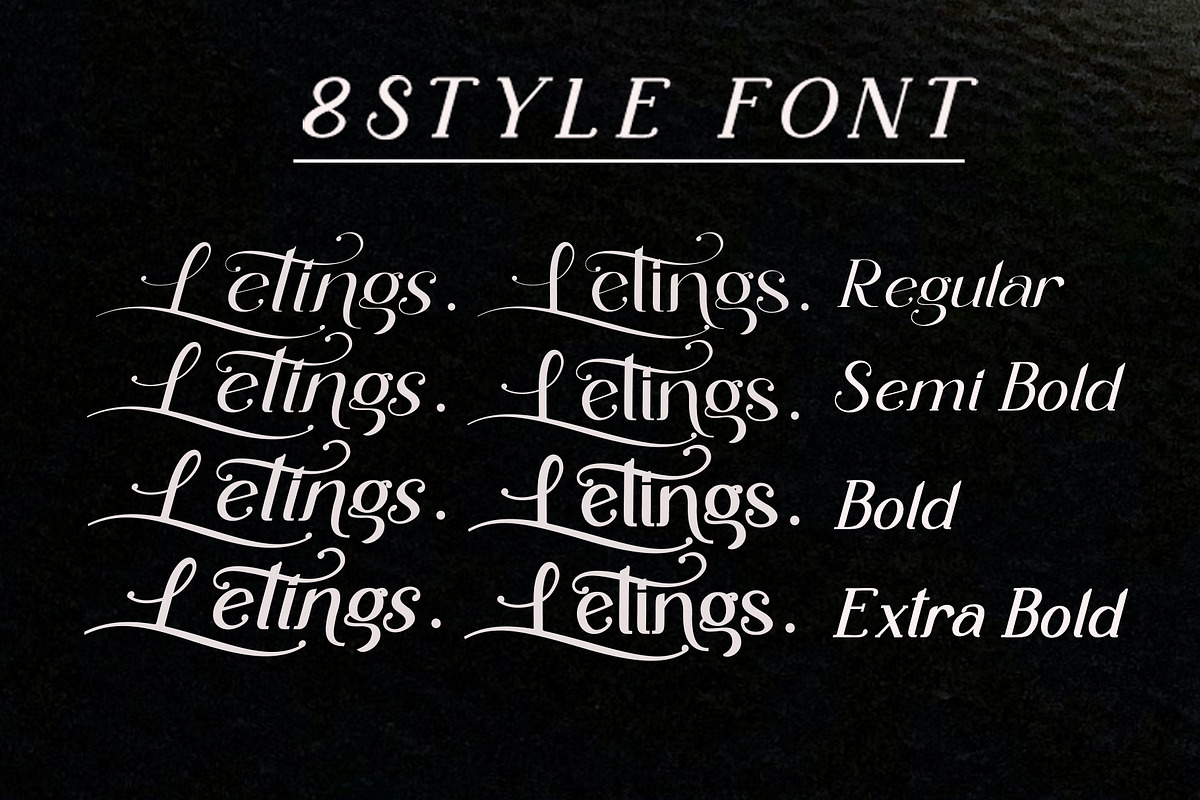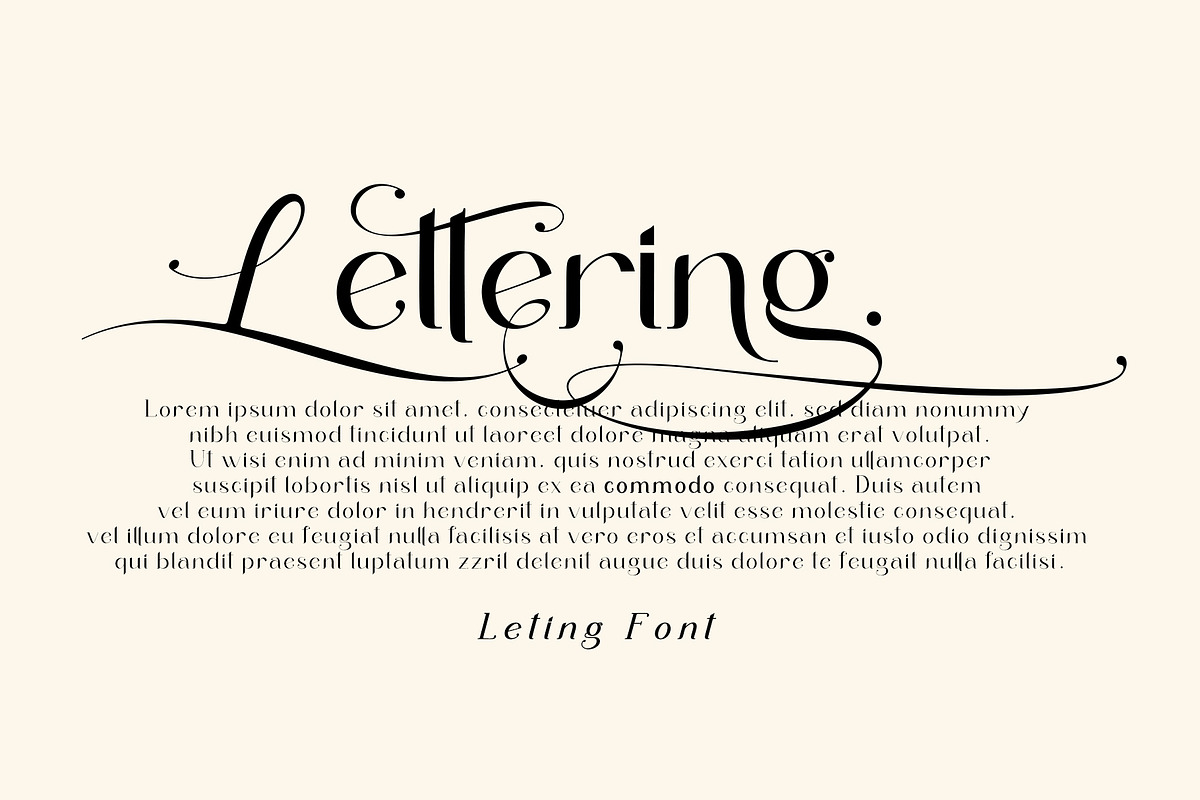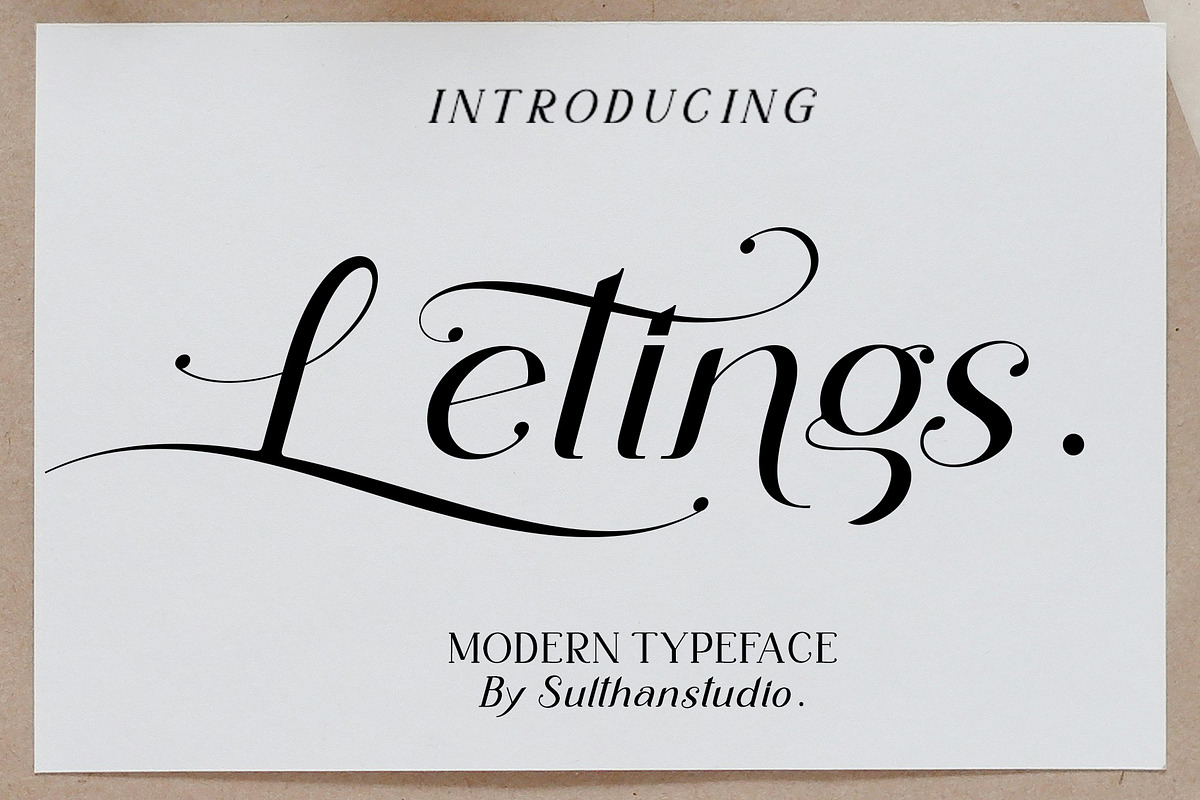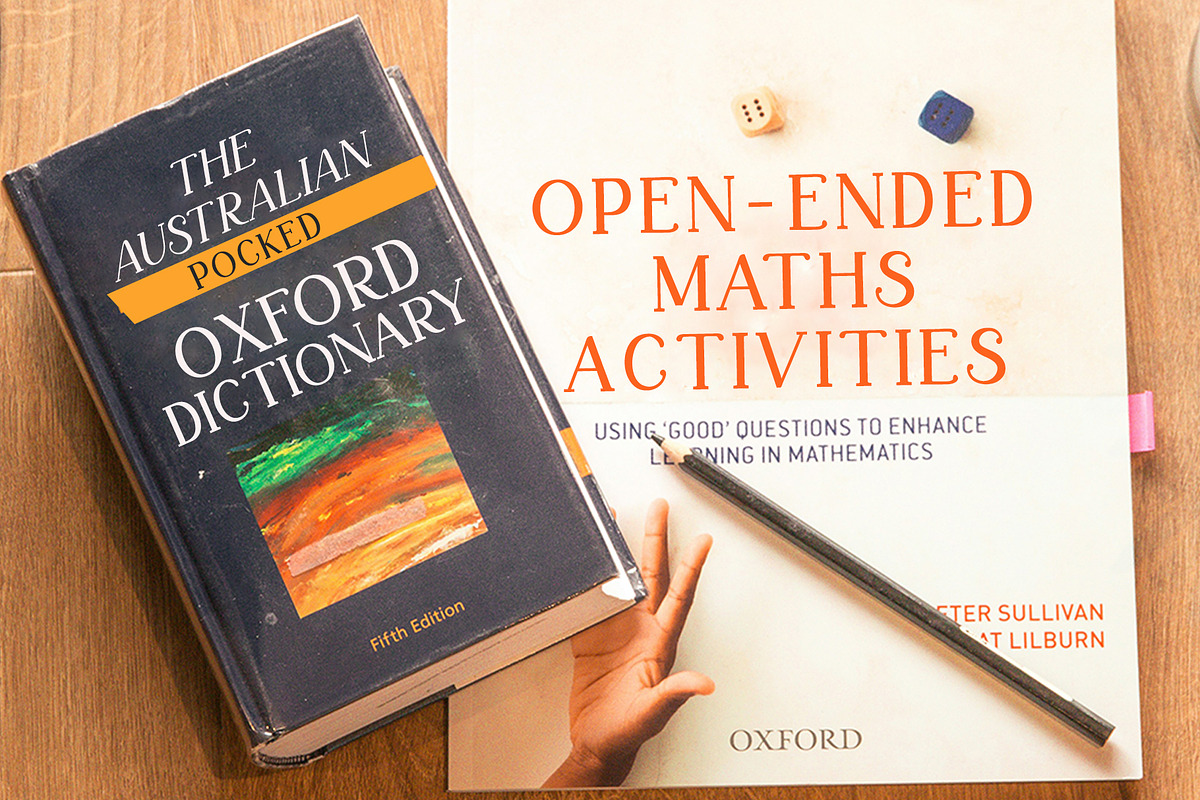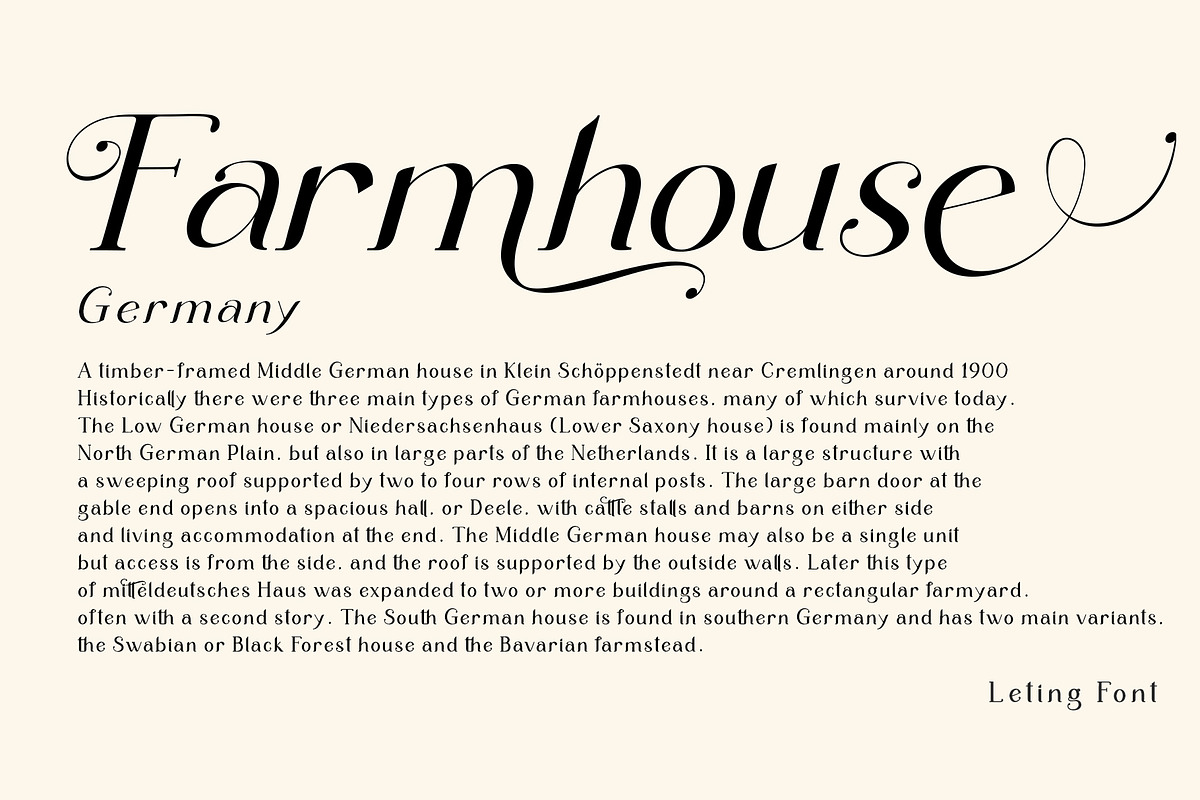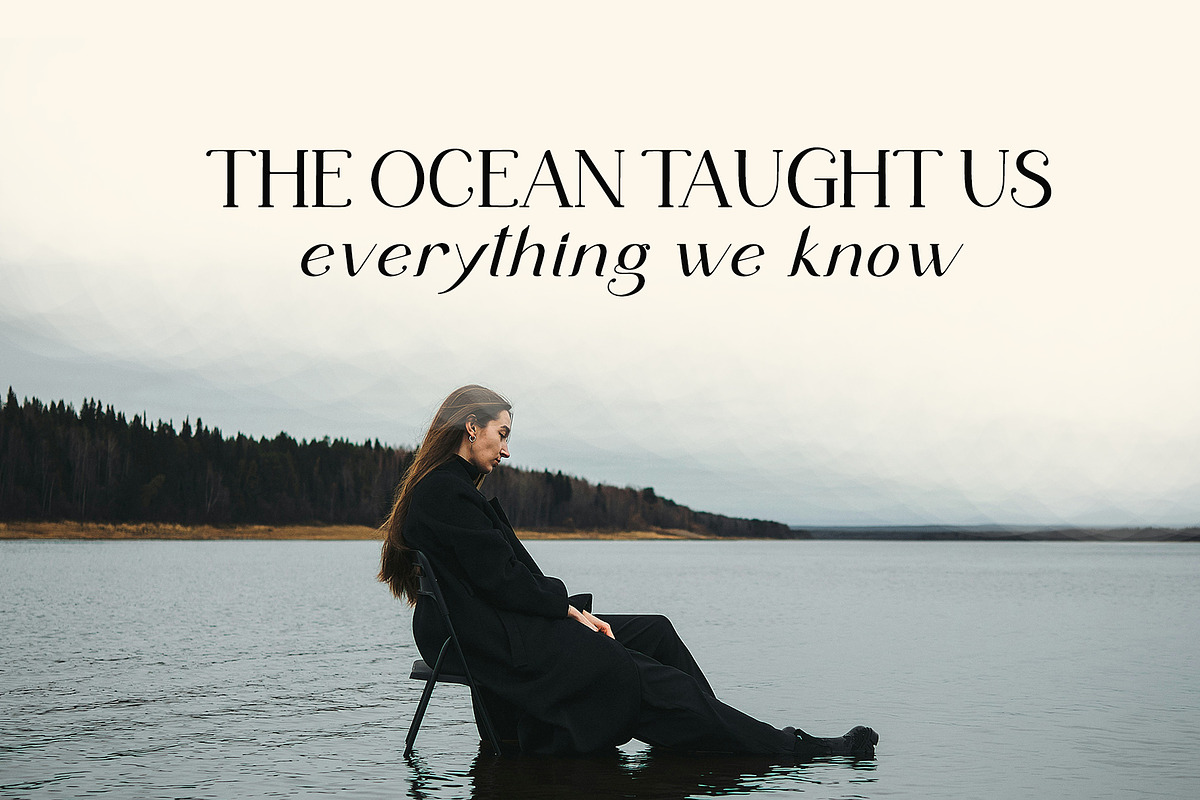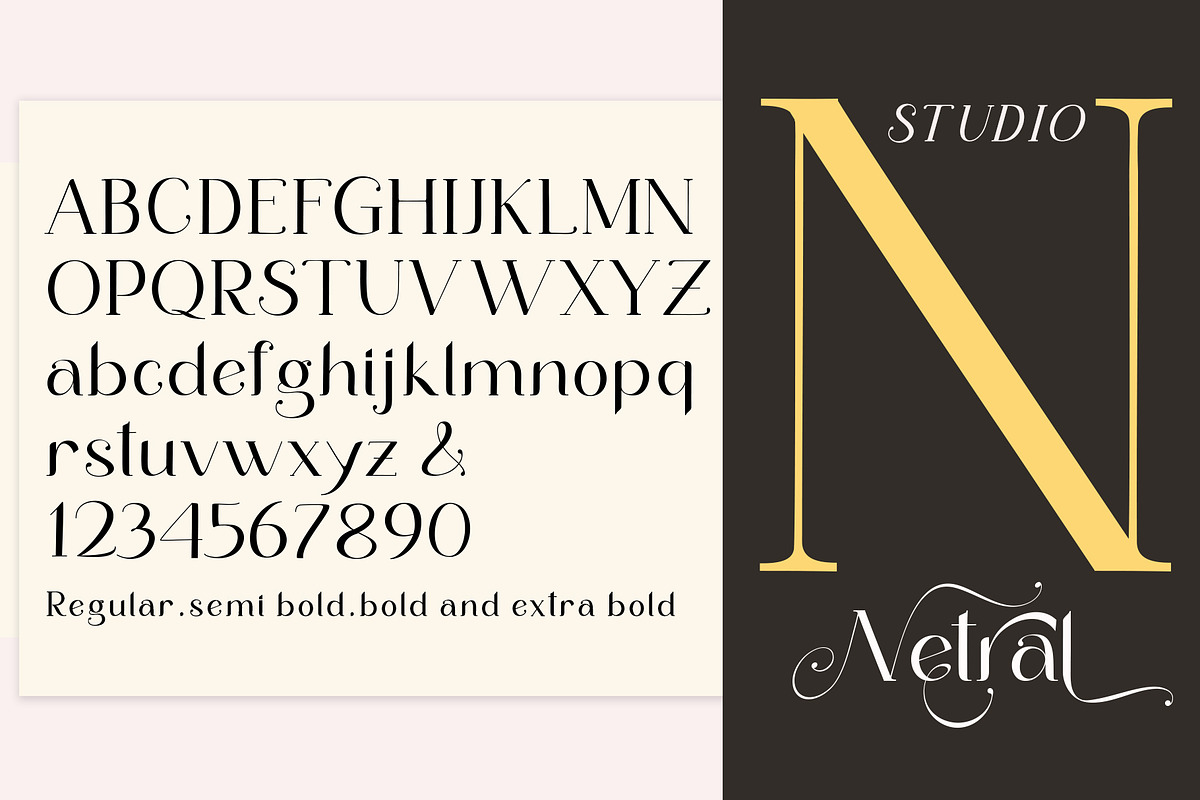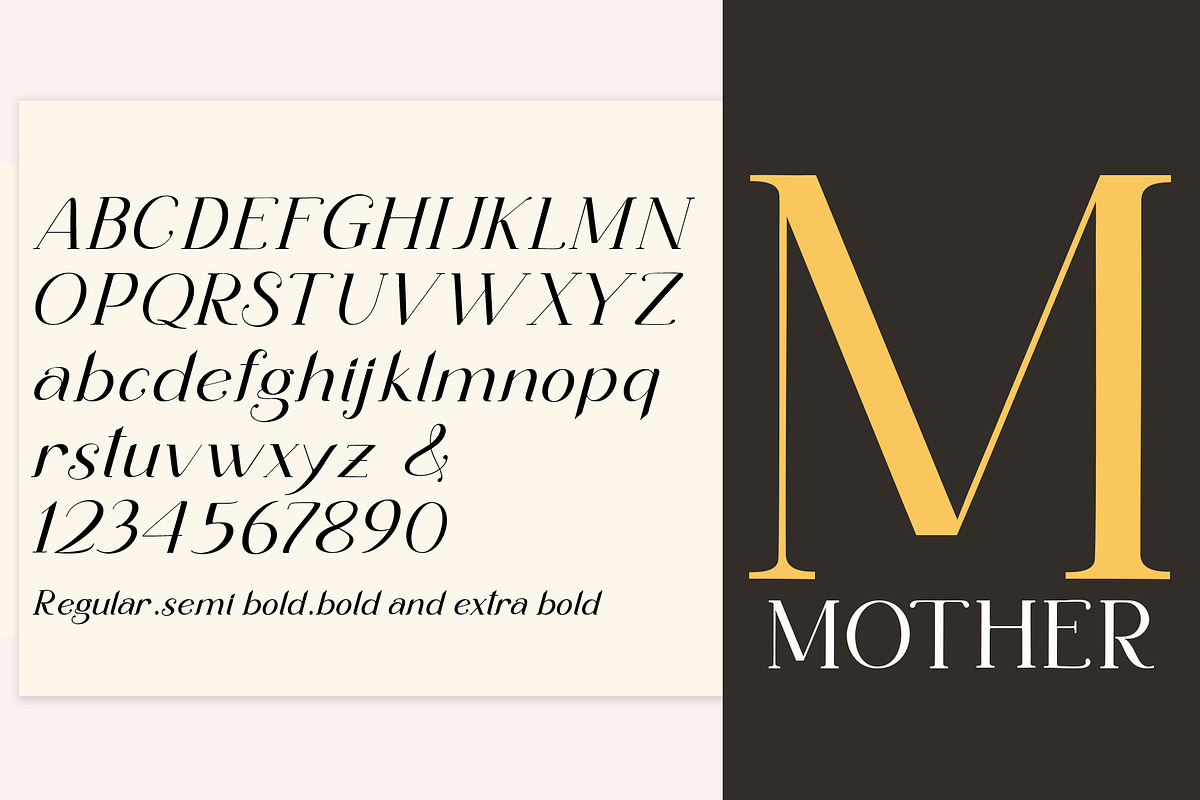
Letings
Introducing Letings, a modern serif font that fuses functionality with aesthetics, perfect for the needs of the contemporary era. Boasting eight distinctive thickness styles, Laying enhances the visual impact and communication of your creations. Every uppercase and lowercase letter features a unique swash and alternative, available in both regular and italic styles. Join the revolution in typography with Leting, destined to elevate all your design works with its sleek sophistication and versatile adaptability.